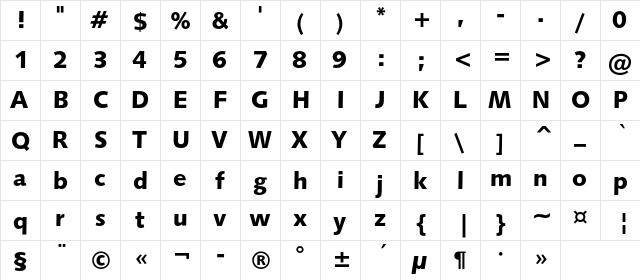
Humanist531C Black BT Regular
Design Context for Humanist531C Black BT Typeface
Humanist531C Black BT takes a measured approach to typography — its balanced proportions and neutral character make it a reliable workhorse for both digital and print work.